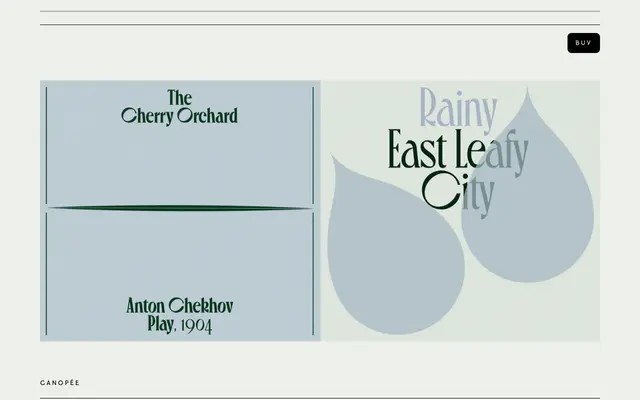
Canopée
VJ Type · Jérémy Schneider · 2016
A display serif by Jérémy Schneider that holds geometric, sharp serifs in deliberate tension with rounded, organic letterforms and extreme rhythmic width variation.
Originally released in 2016 and substantially revised to version 2.2026, Canopée pairs needle-sharp serifs with letterforms that are full and softly rounded, creating a friction the designer describes as structural rather than accidental. The rhythm is built into the width relationships between letters, tight then wide in alternation, giving the typeface an unmistakable pulse at large sizes. A rich set of OpenType alternates for A, K, M, V, W and Y, alongside ligatures and diacritics for broad Latin coverage, makes it well-suited to editorial display, poster and identity work.
Sharp, geometric serifs on organic, rounded letterforms make this a display serif with an intentional tension between rigidity and looseness. The dramatic width variation between letters and the absence of italics point firmly toward display use.